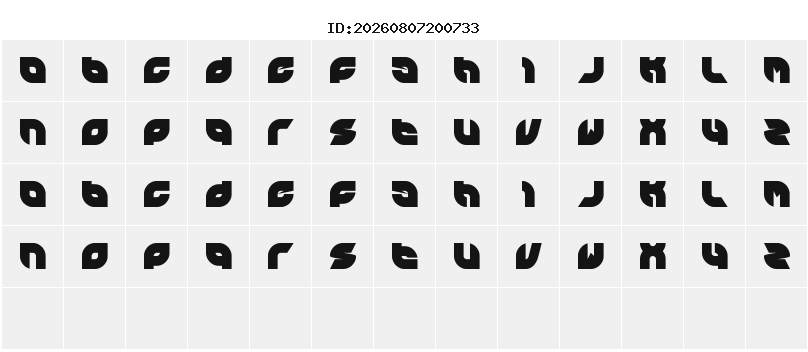
picaae Preview
• Font Name: picaae
• Font ID: picaae:Version 1.00
• Full Font Name: picaae
• Version: Version 1.00 August 7, 2011, initial release
• PostScript Name: picaae
• Designer: 桴瑰㨯⽷睷⹤慦潮琮捯洯睩湯⵳⵫慤楲⹤㈲〹
• Manufacturer: 桴瑰㨯⽷睷⹤慦潮琮捯洯睩湯⵳⵫慤楲⹤㈲〹
About picaae.ttf
picaae.ttf is a modern, elegant sans-serif font designed for ultimate readability and visual harmony. Perfect for branding, headlines, web design, and print materials.